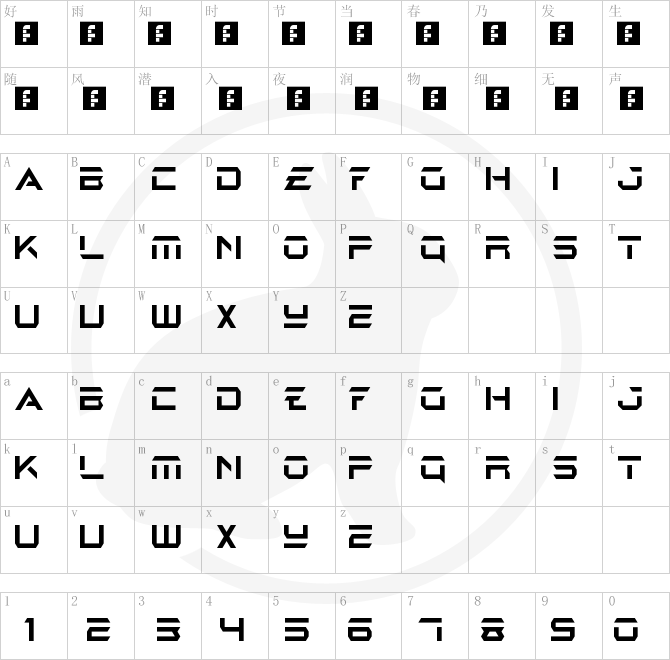
- Font Name:EA Logo
EA-Logo-Regular.ttf is a very beautiful artistic font, EA-Logo-Regular.ttf is widely used in the design and printing of various books and pictures,EA-Logo-Regular.ttf has a strong visual impact,EA-Logo-Regular.ttf is a commonly used font in newspapers, magazines and books, and is used in posters, e-commerce Poster design, store design, logo design, font design and other fields.EA-Logo-Regular.